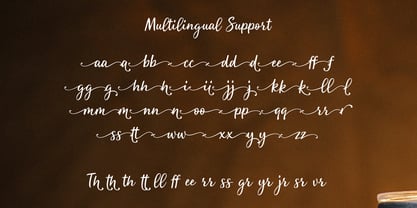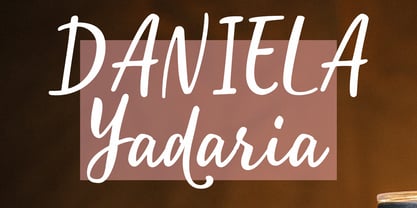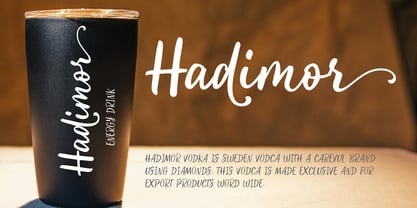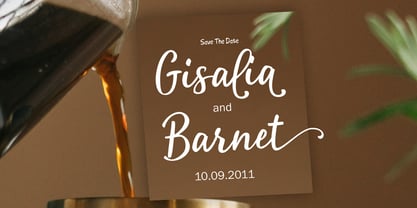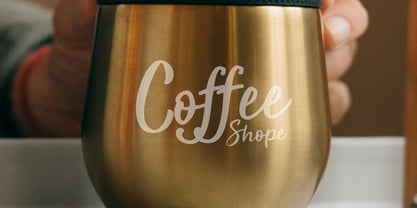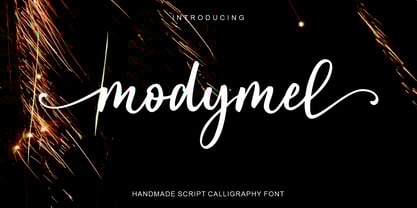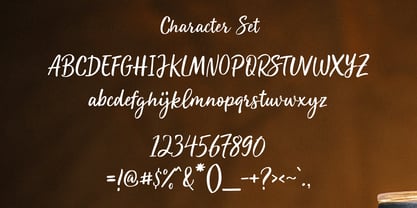
Modymel
by Gian Studio
The Modymel Font Family was designed by Yusliana M Isa and published by Gian Studio. Modymel contains 1 styles.
Modymel is modern calligraphy script font, every single letters has been carefully crafted to make your text looks beautiful. With modern script style this font will perfect for many different project, example: invitations, greeting cards, posters, name card, quotes, branding, logo, fashion, apparel, letter, stationery and more!
Modymel come with The alternative characters were divided into several features such as Stylistic Alternates, Contextual Alternates. features can be accessed by using Open Type savvy programs such as Adobe Illustrator, Adobe InDesign, Adobe Photoshop Corel Draw X version, And Microsoft Word. so that all the alternate characters can easily be accessed in full by a craftsman or designer.
Modymel: Uppercase & Lowercase International Language & Symbols Support Punctuation & Number PUA Unicode Range Standard Stylistic Alternates Stylistic Character Variant of ligatures.
Designers: Yusliana M Isa
Publisher: Gian Studio
Foundry: Gian Studio